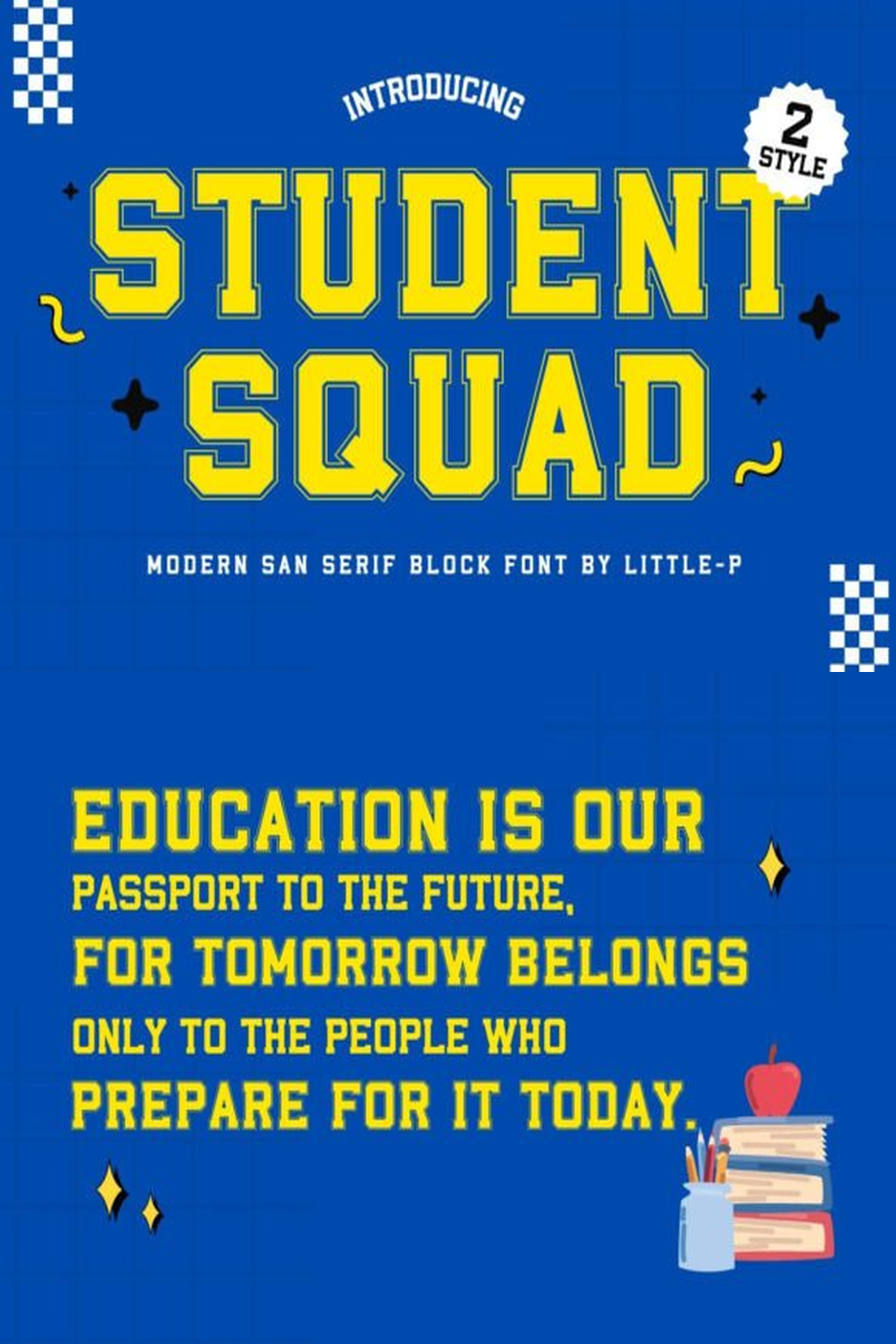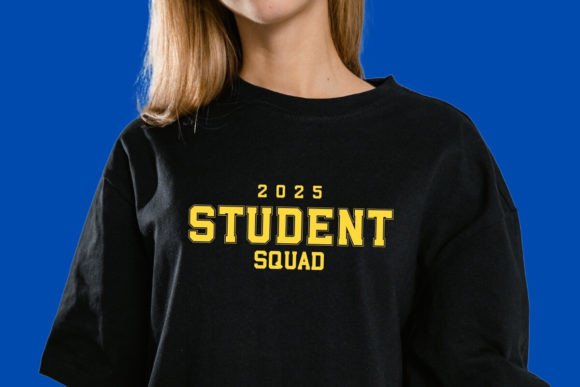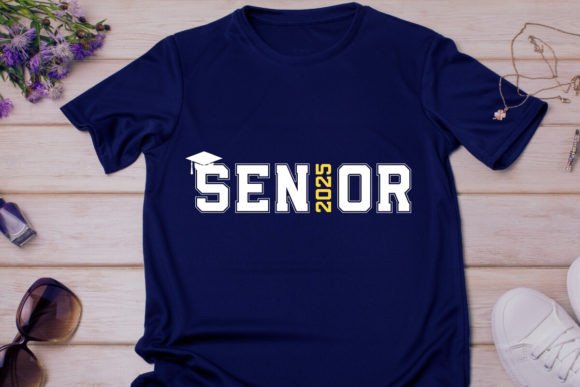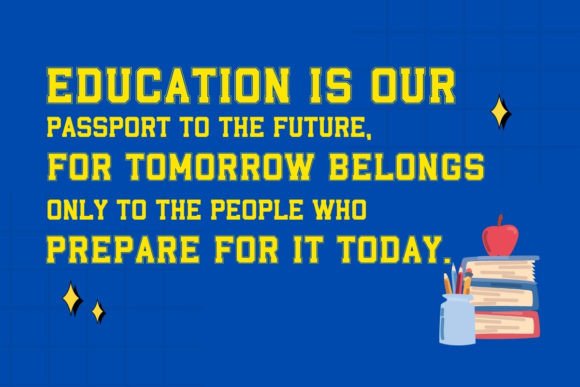
Student Squad Font
About the Student Squad Font
Add a touch of class to your work with the Student Squad Font, a truly exceptional typeface. Introducing “Student Squad” a bold sans-serif college font style designed to bring a classic collegiate look to your projects. This font set consists of two versatile styles that can be easily adapted to create variety while maintaining a unified design. With its strong block letters, “Student Squad” is perfect for sweatshirts, banners, custom DIY craft projects, and representing your sports team with pride. Add a touch of school spirit and athletic charm to your designs with this dynamic font duo!